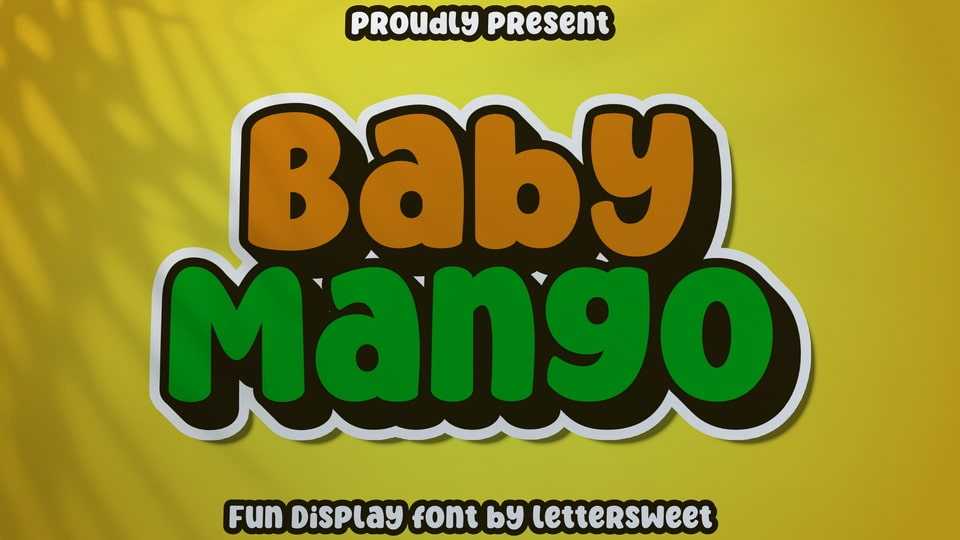
Download Baby Mango font, a contemporary display font bursting with playful personality. With its carefully calibrated curves and thoughtfully designed aesthetic appeal, Baby Mango brings a fun-filled energy to any design.